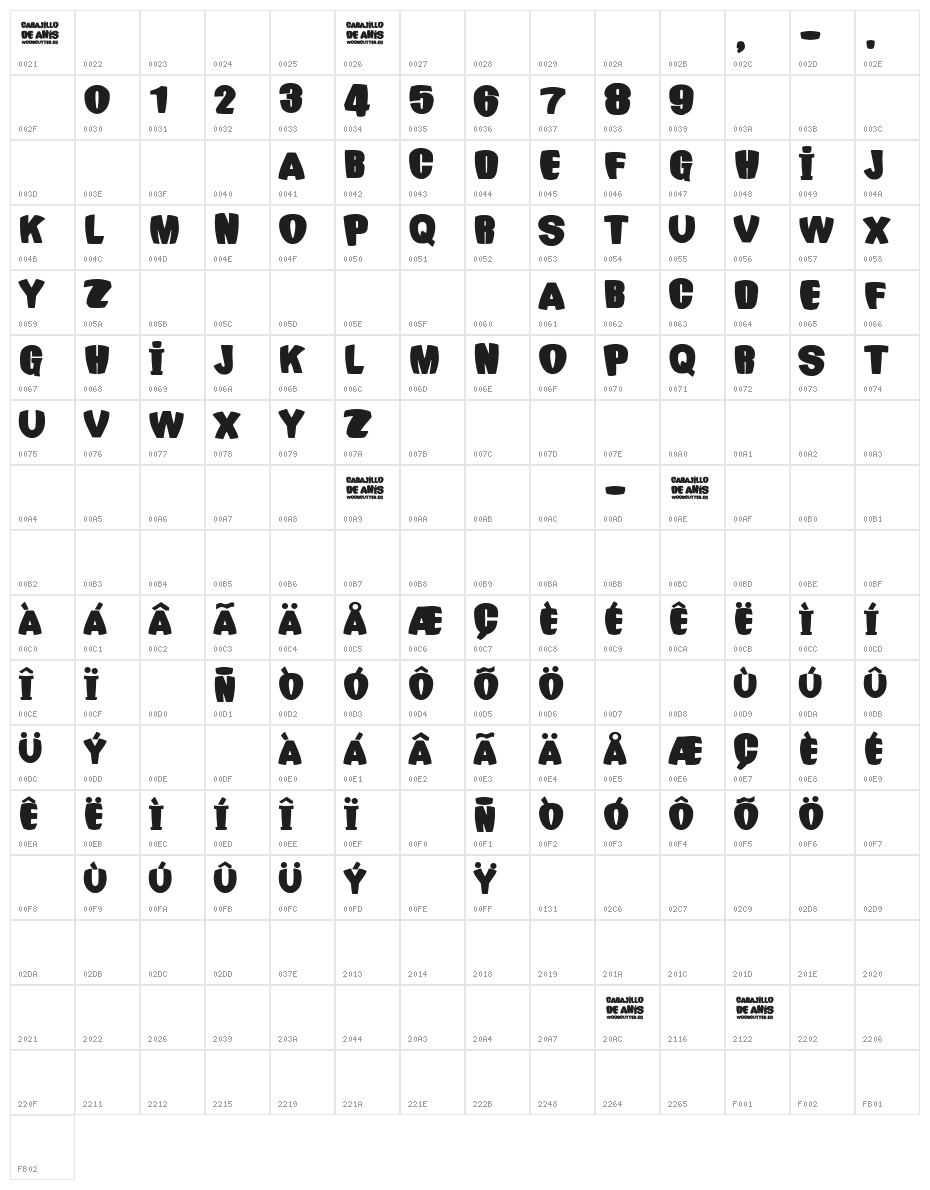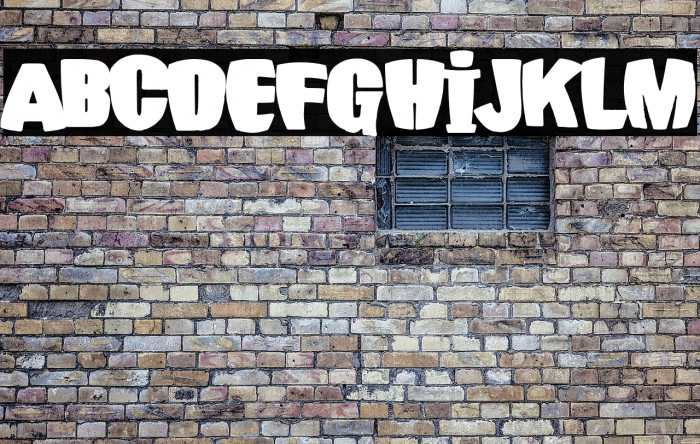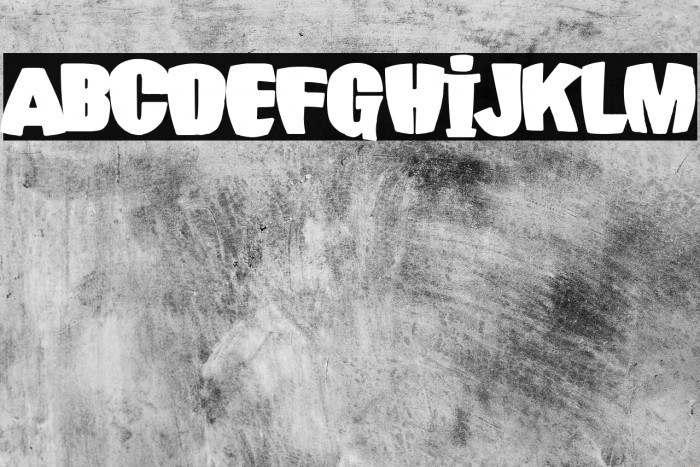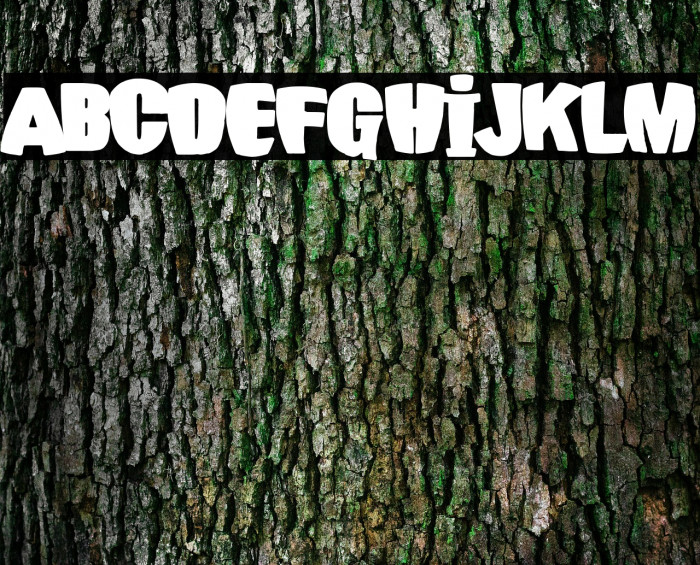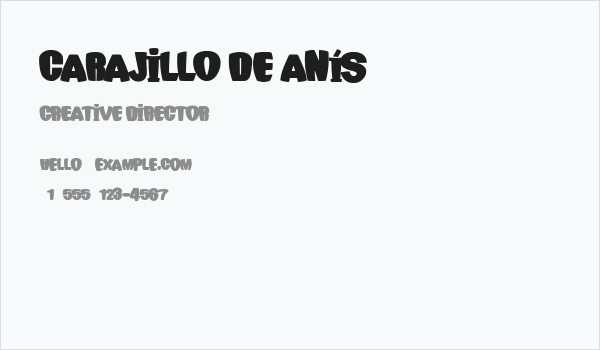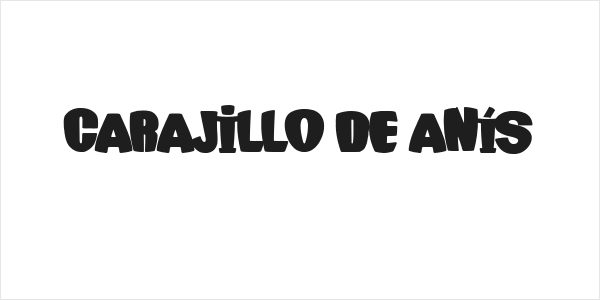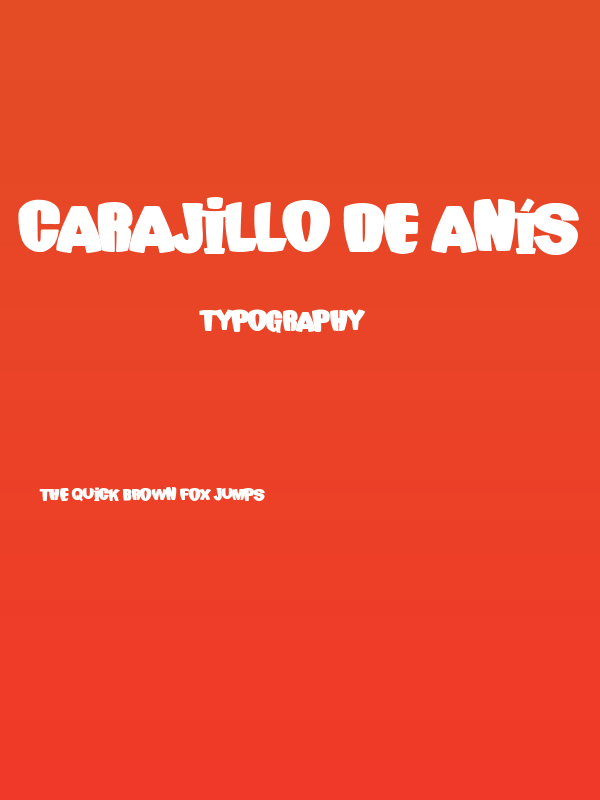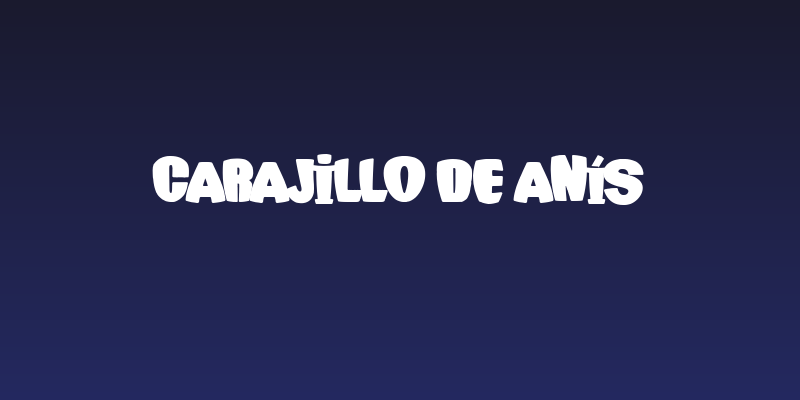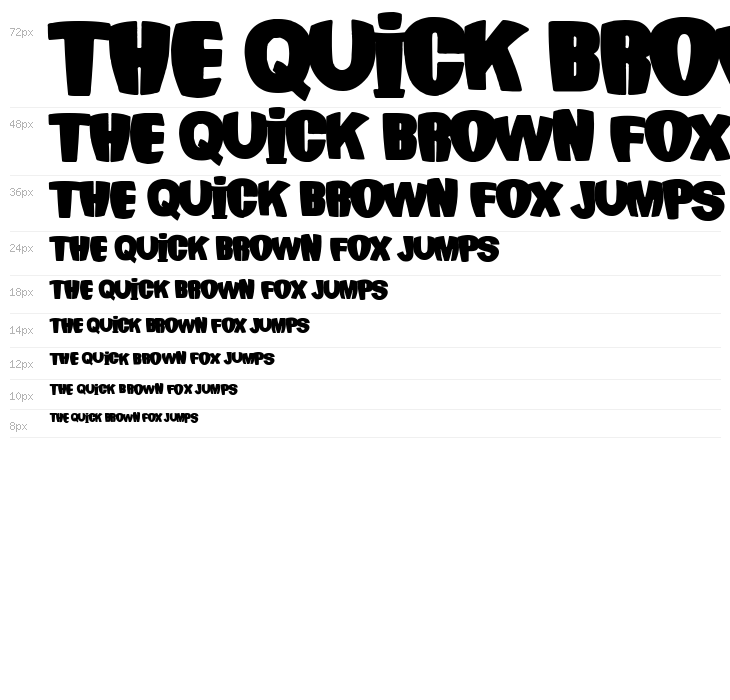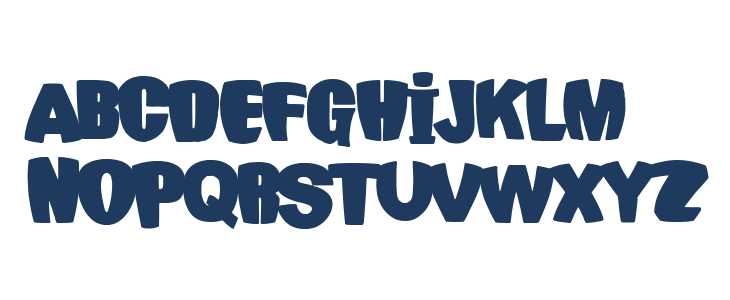
Carajillo de Anís Font
Carajillo de Anís Description
This font features a bold and playful design with thick, rounded strokes that give it a cartoonish and whimsical appearance. The characters are heavily weighted, creating a strong visual impact. The letters have a slightly irregular shape, adding to their quirky and fun style. This font is highly decorative, making it suitable for eye-catching headlines or creative projects. The numbers and special characters maintain the same bold and playful aesthetic, ensuring consistency across all elements.
| Overall Style | Playful, Whimsical, Cartoonish |
| Use Case | Headlines, Posters, Creative Projects |
| Proposed Projects | Ideal for children's books, playful branding, posters, and any project requiring a fun and bold typeface. |